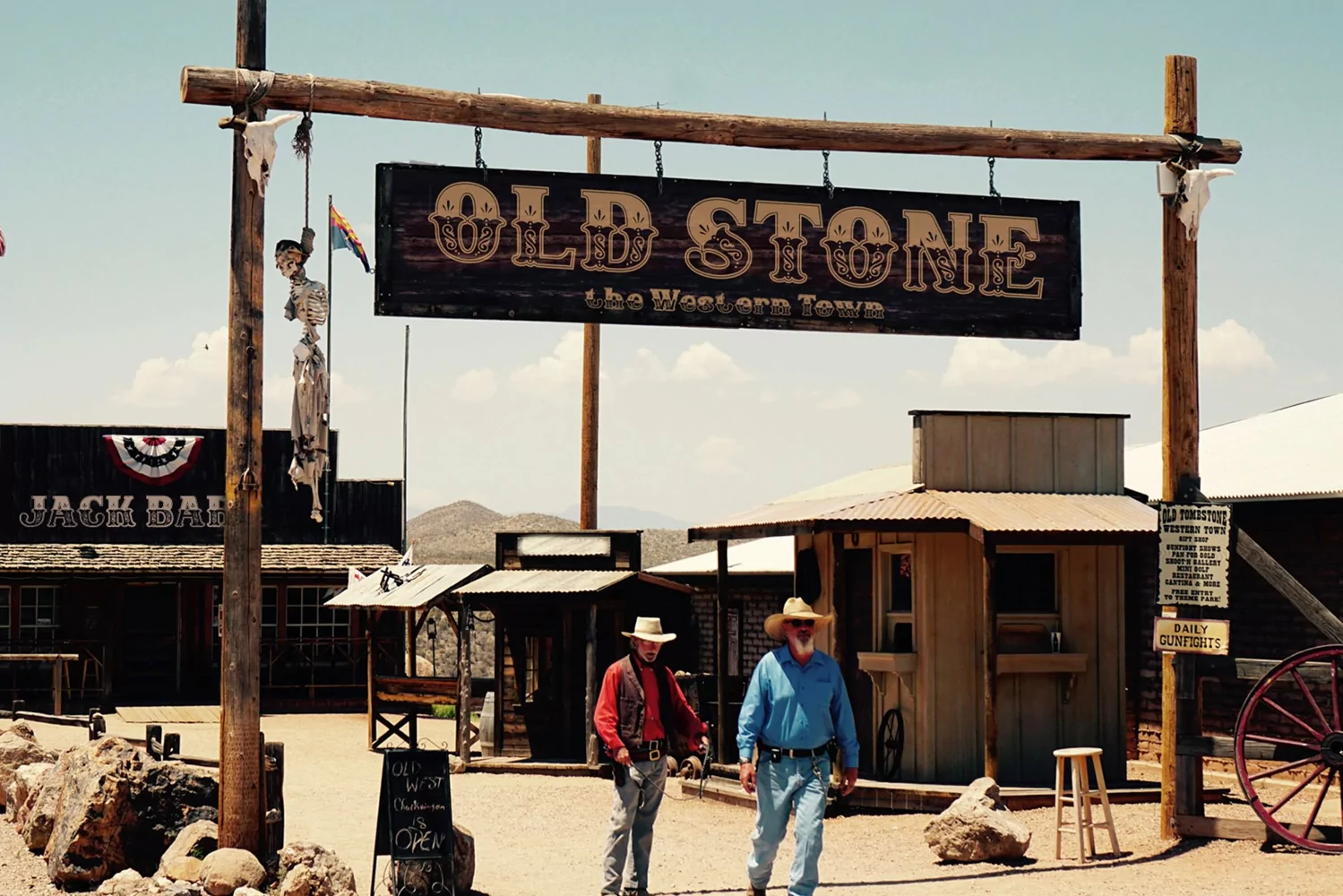
Jackwoods
**Jackwoods Font**
This pair was inspired by the old cowboy poster design that i saw on some coffee shop, It was crafted by hand specially to add natural handmade feeling in its brand identity than i make it clean with pentool.
Jackwoods font has 198 character set included